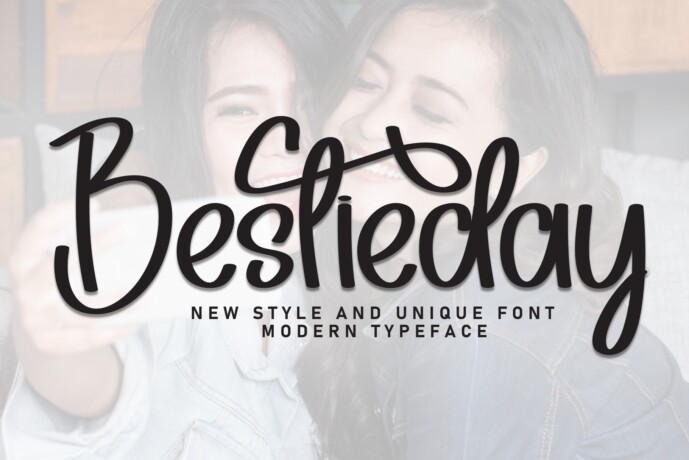
Bestieday Font
Bestieday is a casual and neat display font designed to bring warmth and clarity to your projects. With its clean structure and approachable style, it suits branding, headlines, and everyday designs. The balanced letterforms offer readability and charm, making every message feel genuine and inviting.